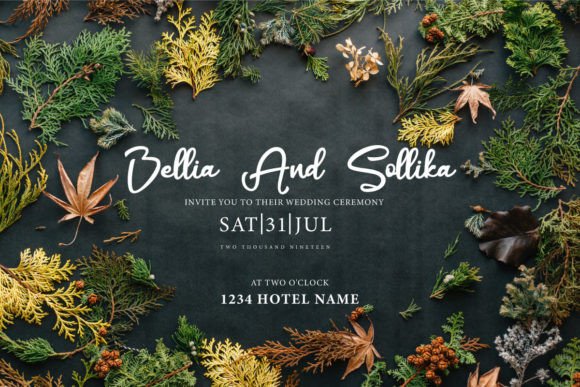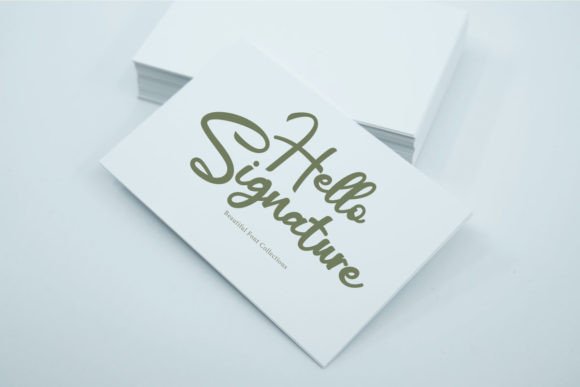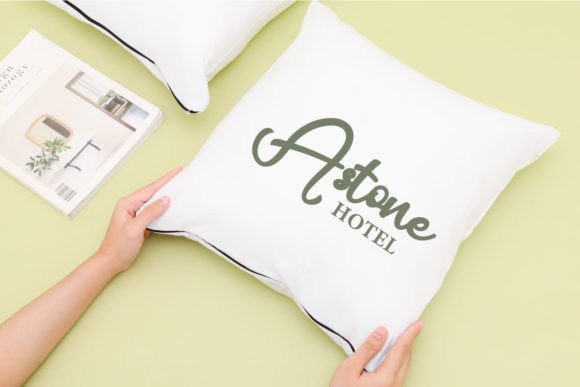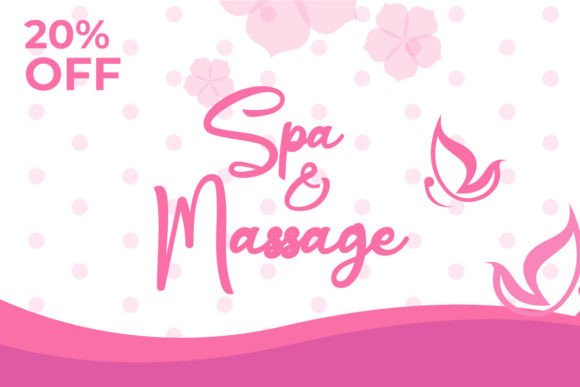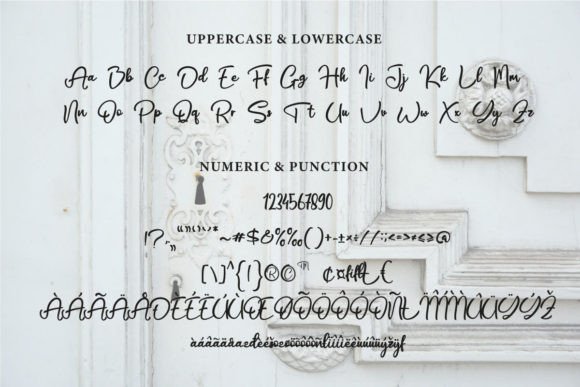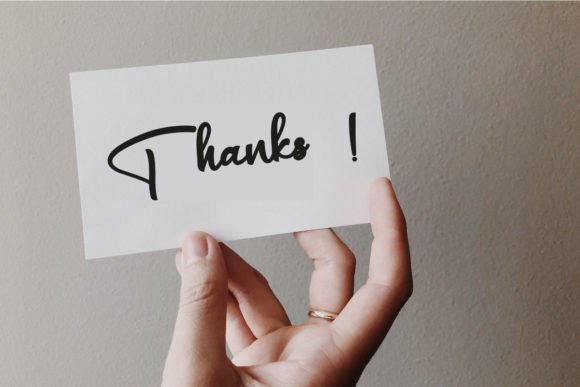
Introduction to Secret Font
Secret is a fun and casual handwritten font.
Whether you’re using it for crafts, digital design, presentations, or making greeting cards, this font has the potential to become your favorite go-to font, no matter the occasion .
Key Features of Secret Font
Why Choose Secret Font?
Secret Font offers exceptional quality and versatility, making it a valuable addition to your design toolkit. Whether you’re creating for personal projects or commercial use, Secret Font delivers professional results.